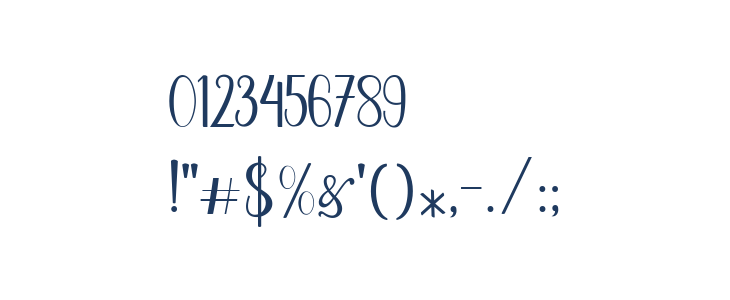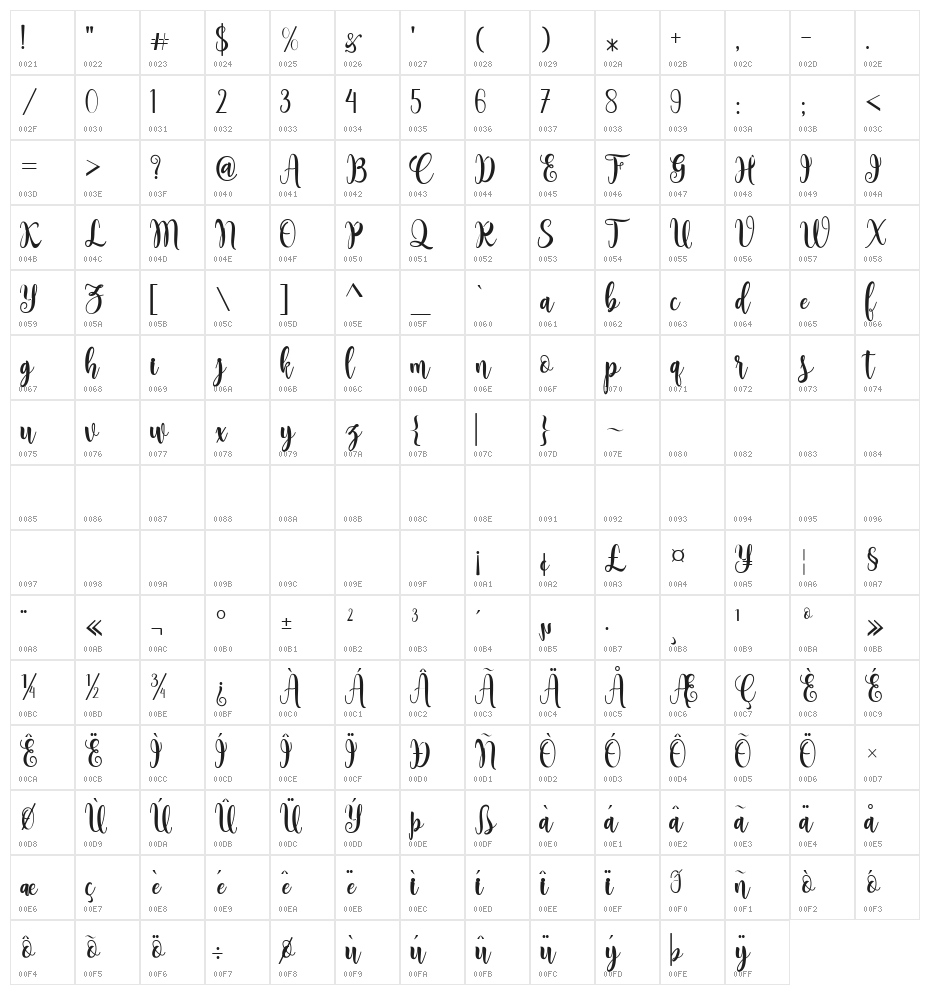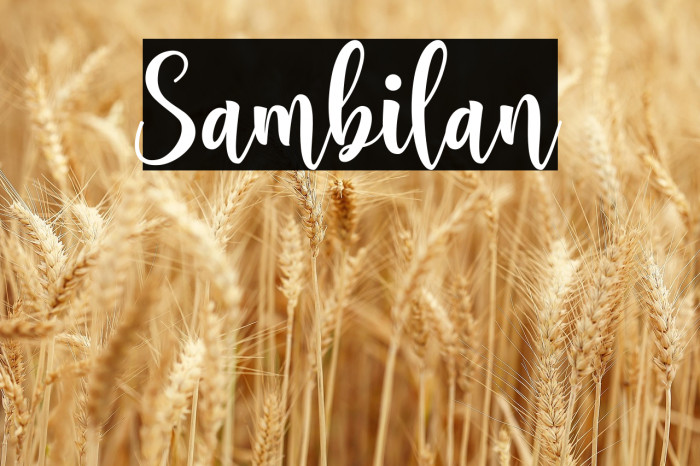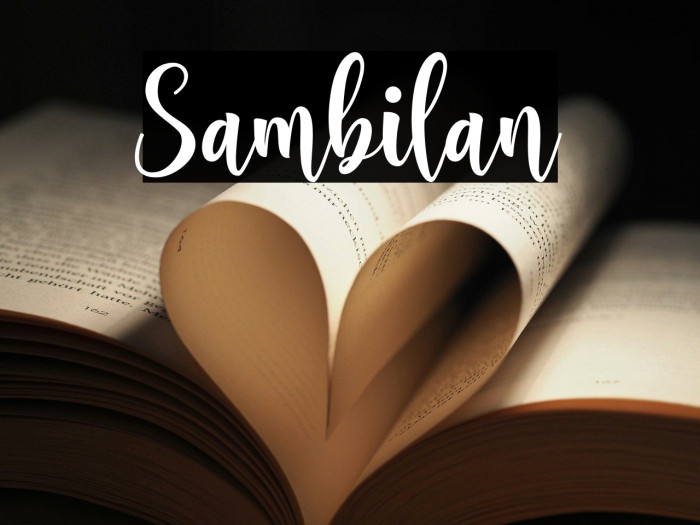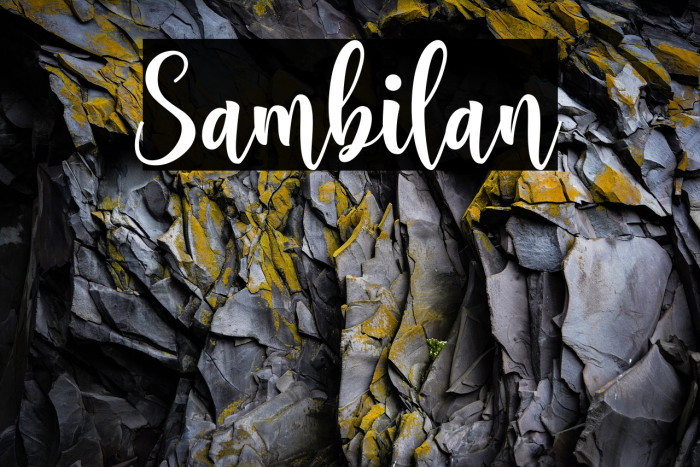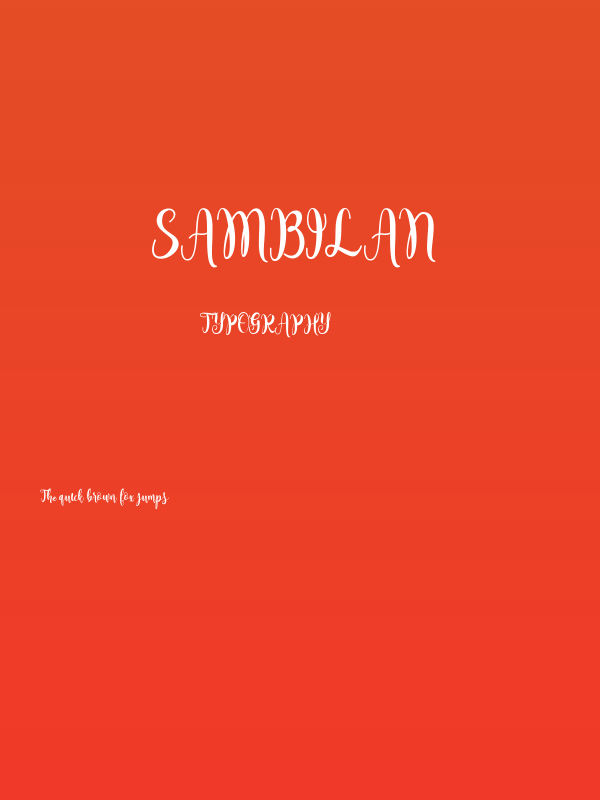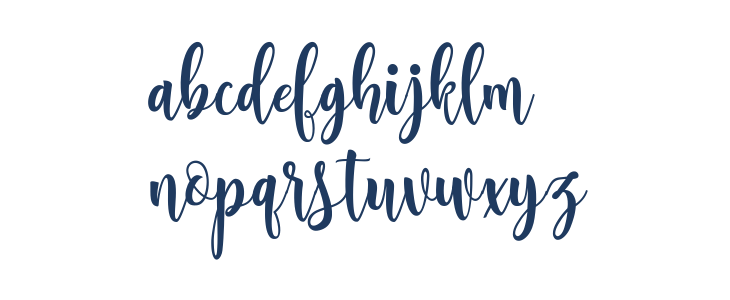
Sambilan Font
Sambilan Description
This font features a flowing, cursive style with elegant loops and swashes, giving it a sophisticated and artistic appearance. The uppercase letters are bold and expressive, with intricate curves that add a touch of flair. The lowercase letters maintain a consistent style, with smooth connections between characters, enhancing its script-like quality. Numbers and special characters are designed to match the overall aesthetic, ensuring a cohesive look across all elements. The font's playful yet refined nature makes it suitable for creative and decorative applications.